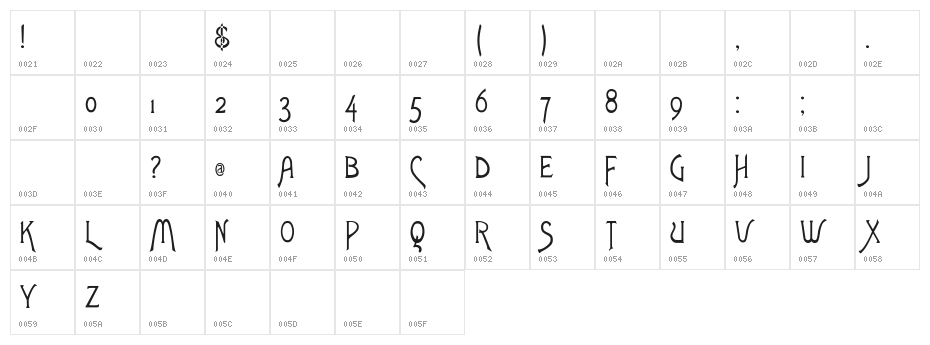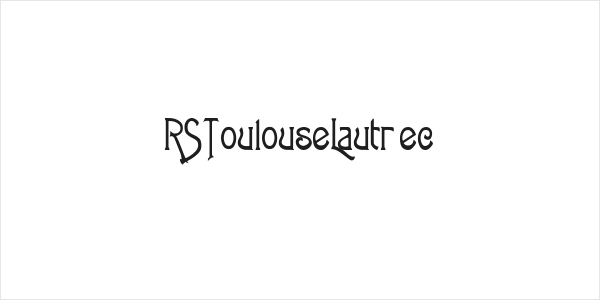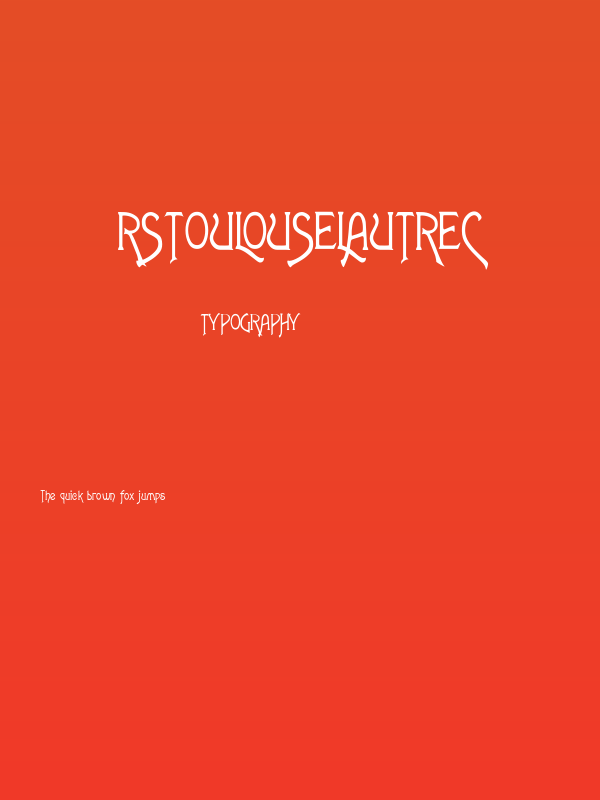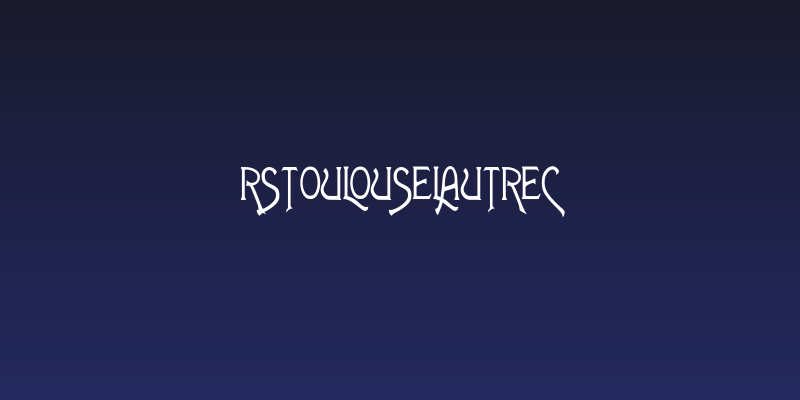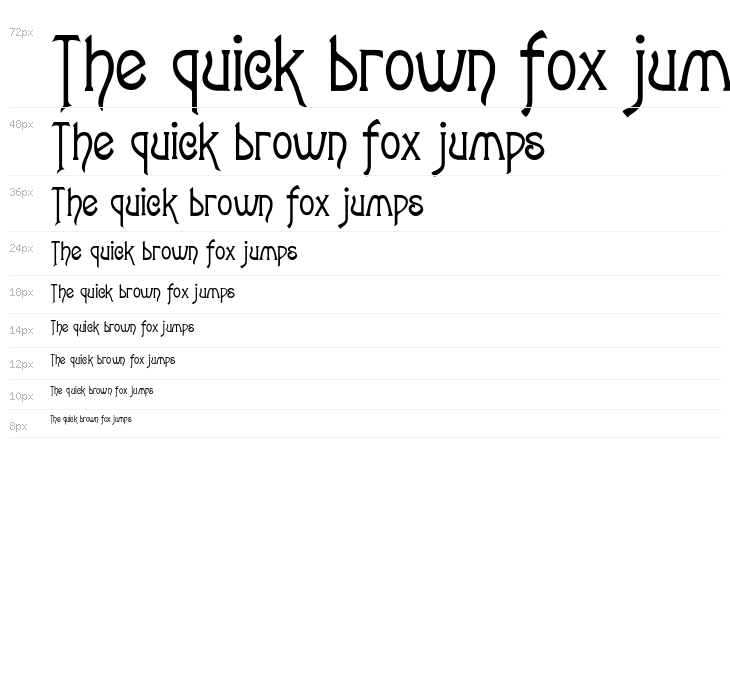
RSToulouseLautrec Font
RSToulouseLautrec Description
This font exhibits a unique and artistic style, reminiscent of the Art Nouveau movement. The characters are elongated and feature elegant curves and sharp angles, creating a sense of movement and fluidity. The uppercase letters are particularly distinctive, with some characters featuring exaggerated ascenders and descenders. The lowercase letters maintain a consistent style, with a playful yet sophisticated appearance. The numerals are bold and maintain the same artistic flair as the alphabetic characters. Special characters are creatively designed, adding to the font's overall decorative appeal. This font is perfect for projects that require a touch of vintage elegance and artistic expression.
| Overall Style | Vintage, Artistic |
| Use Case | Headlines, Posters, Artistic projects |
| Proposed Projects | Ideal for posters, invitations, branding, and any project seeking a vintage or artistic touch. |